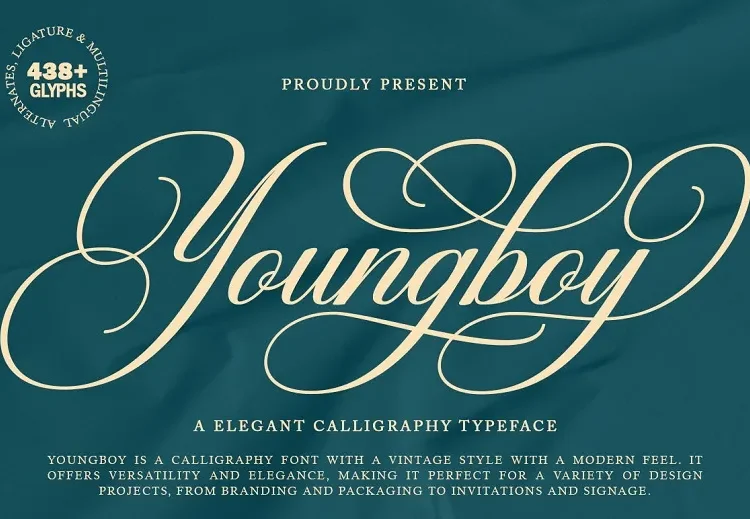
Youngboy Font
Youngboy is a sophisticated calligraphy font that combines a modern aesthetic with a touch of classic elegance. Its flexible and stylish design makes it a versatile choice for various applications, such as business branding, packaging, invitations, and signage. The font features beautifully crafted alternate characters, offering a fresh take on traditional ornamental copperplate script while maintaining a contemporary flair. This attention to detail ensures that Youngboy delivers an elegant and refined appearance in any project.
The timeless style of Youngboy makes it an excellent option for formal uses across a broad spectrum of settings. Whether you’re designing invitations, labels, restaurant menus, logos, or working on fashion and makeup branding, this font adds a polished and graceful touch. It’s equally well-suited for stationery, novels, magazines, books, greeting and wedding cards, packaging, and commercial advertising, where a classic yet modern look is desired.